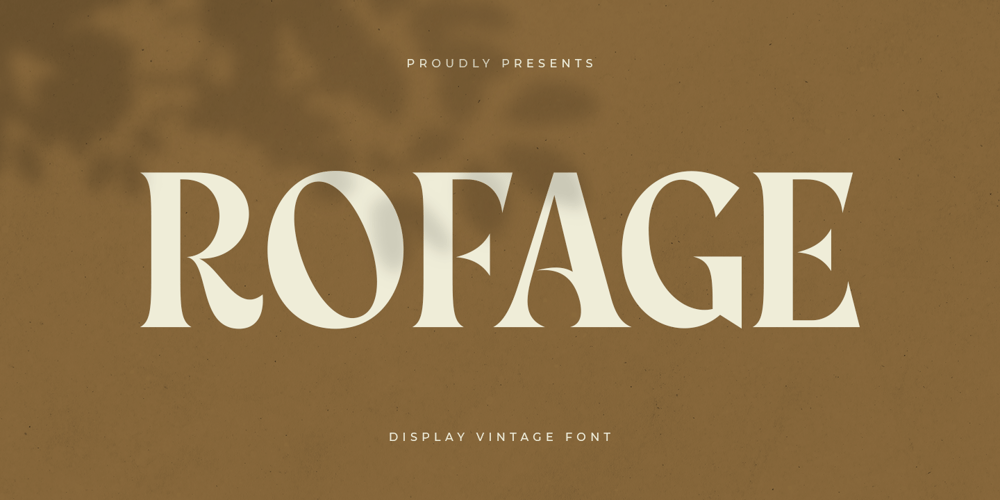
Rofage Font Family was designed by Zamroni Hamzah and published by Sensatype Studio. Rofage contains 1 styles and family package options. Rofage is a Display Vintage font that produced with unique style and ready for vintage projects.Based on our experience as a graphic designer who works for a lot of companies, we often are requested to design a graphic with a vintage feels and classy style. So, we try to brainstorming and create this font to make the idea is going out. This is perfect for show off in vintage style and retro vibes. You will get vintage, modern, and certainly unique style with this font.Rofage font is also included full set of: Uppercase & Lowercase letters Multilingual characters Numerals Punctuations Wish you enjoy our font. 🙂